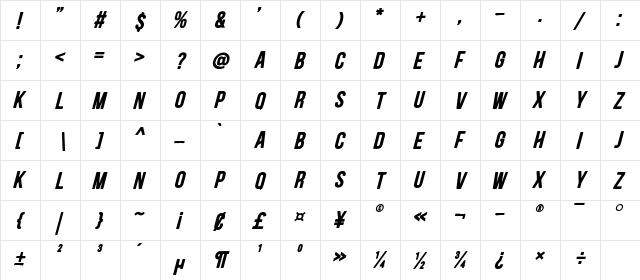
Blackside Bold Italic Font Preview
| Designer | Vilogsign 2018 |
Design Context for Blackside Bold Typeface
Blackside Bold takes a measured approach to typography — its balanced proportions and neutral character make it a reliable workhorse for both digital and print work. The dynamic lean of this cut emphasises speed and emphasis in any layout. The heavy weight commands attention and anchors typographic hierarchies.